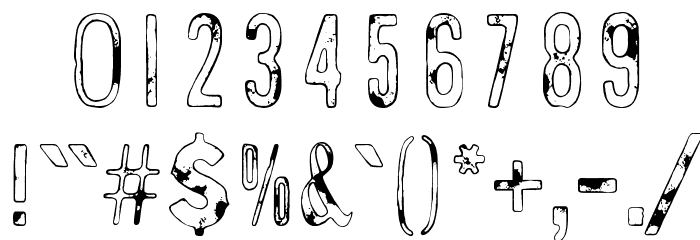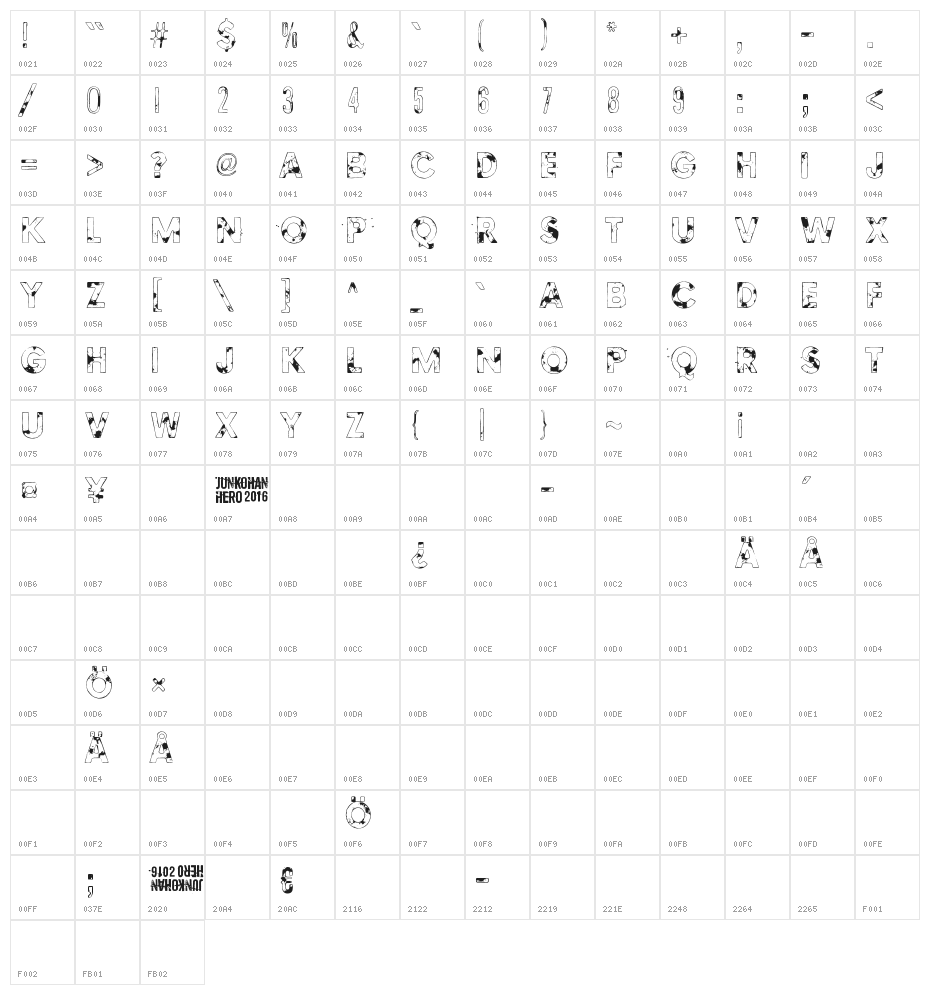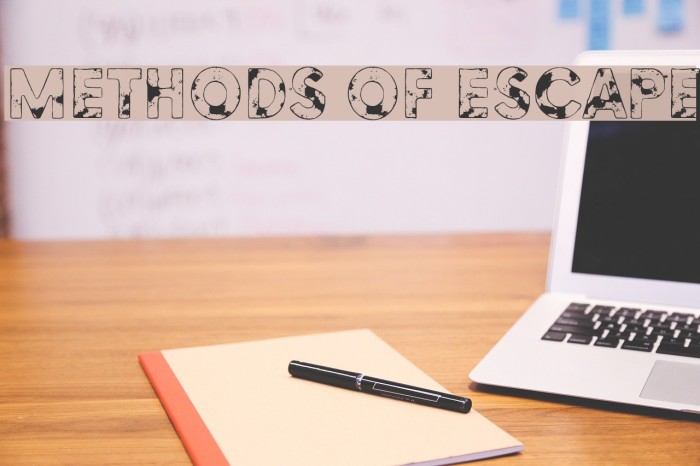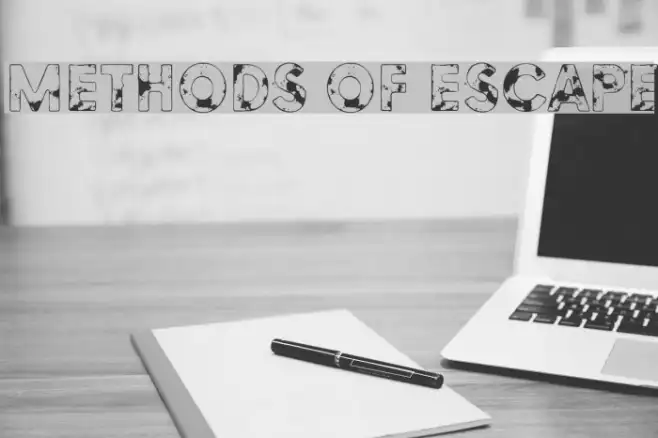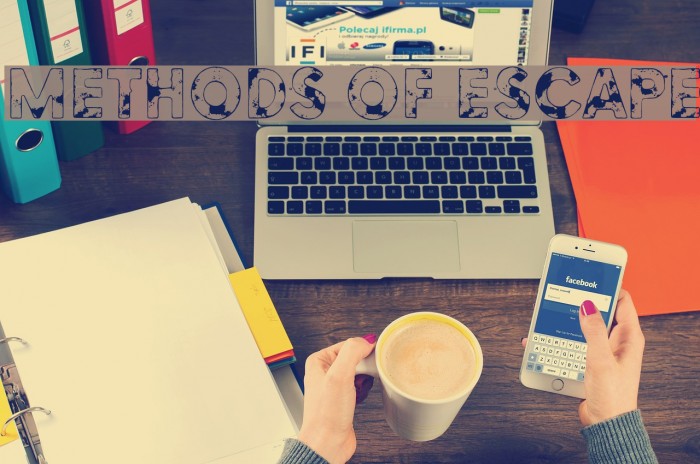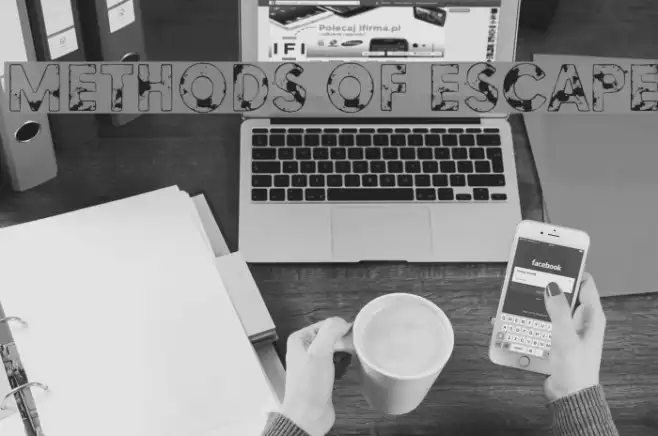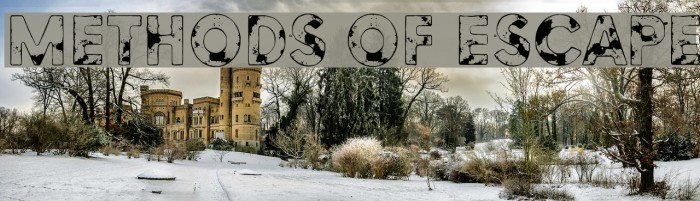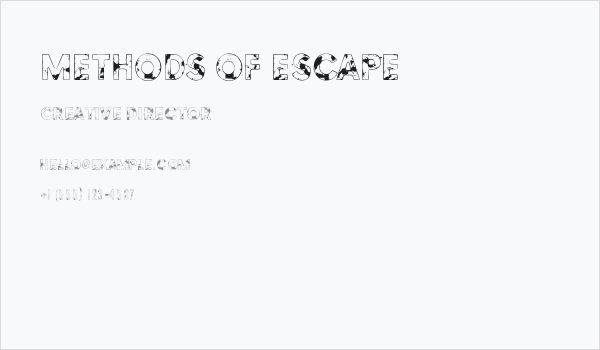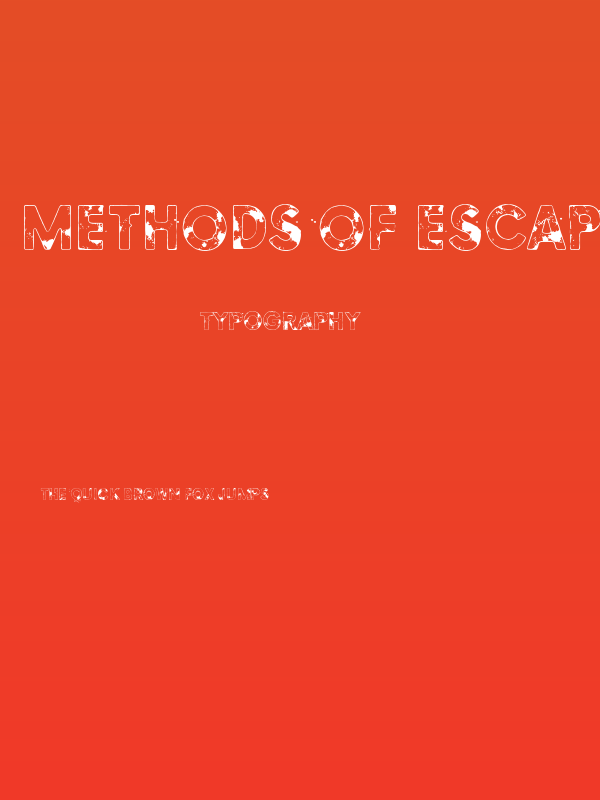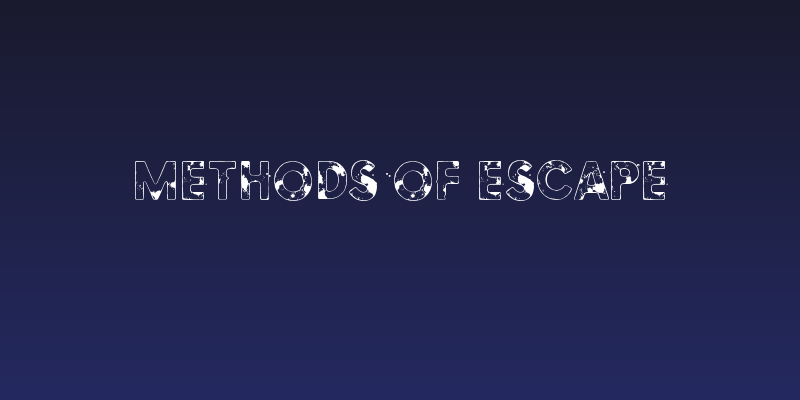
Methods of escape Font
Methods of escape Description
This font features a distressed, grunge style with a bold and impactful appearance. Each character is designed with a weathered texture, giving it a worn and vintage look. The uppercase and lowercase letters maintain a consistent style, with the texture adding a unique character to each glyph. The numbers and special characters follow the same design, ensuring a cohesive appearance across all elements. This font's boldness and texture make it stand out, ideal for projects that require a rugged or edgy aesthetic.
| Proposed Projects | Ideal for posters, album covers, branding for edgy or alternative products, and any design needing a vintage or grunge aesthetic. |